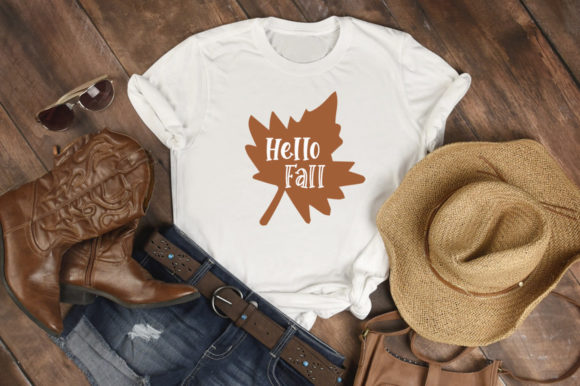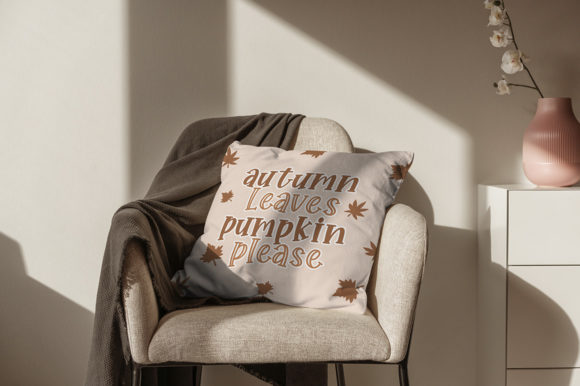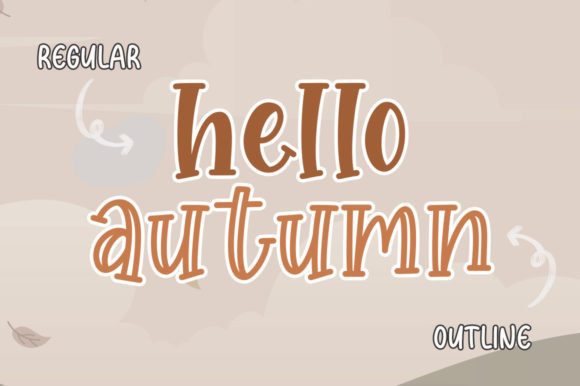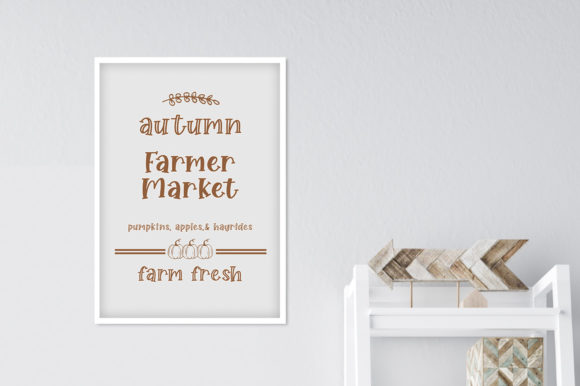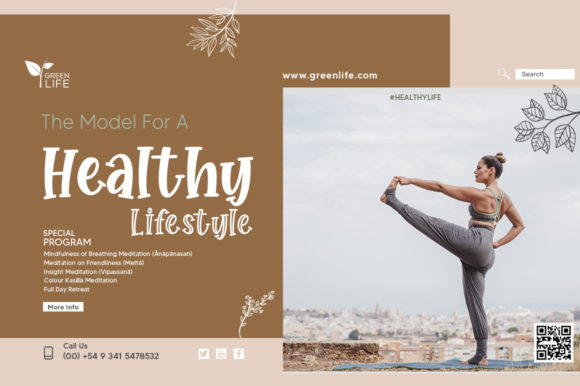
Embracing the Cozy Charm of Autumn with the Perfect Font: Autumn Season Font
As the leaves change colors and the air grows crisper, the autumn season brings with it a sense of coziness and playfulness. For designers and crafters, this season offers a wealth of inspiration for creative projects. One of the most crucial elements in any design is the font choice, and for autumn-themed projects, the Autumn Season Font is an excellent choice. This font is not just a stylish addition but a versatile tool that can elevate your designs, whether you’re working on cartoon-related projects, children’s games, or any creation that requires a lovely touch.
What is Autumn Season Font?
Autumn Season Font is described as a cool and playful display font. Its unique characteristics make it stand out from more traditional fonts, offering a fresh and vibrant look that’s perfect for capturing the essence of autumn. The font’s playful nature makes it an ideal choice for projects aimed at a younger audience or for anyone looking to add a whimsical touch to their designs.
Key Features of Autumn Season Font
- Playful and Cool Design: The font’s design is both playful and cool, making it versatile for various creative projects.
- Cartoon and Game Friendly: Its cartoon-like feel makes it especially suitable for cartoon-related designs and children’s games.
- Lovely Touch: For projects that require a touch of warmth and loveliness, this font fits perfectly.
- Display Font: As a display font, it’s designed to make a statement, perfect for titles, headings, and any text that you want to stand out.
Using Autumn Season Font in Your Designs
The versatility of the Autumn Season Font makes it suitable for a wide range of applications. Here are some ideas on how to incorporate this font into your projects:
Cartoon Related Designs
For designers working on cartoon characters, animations, or comics, the Autumn Season Font can add a modern and fun twist. Its playful nature aligns well with the often whimsical world of cartoons, making your characters and storylines even more engaging.
Children’s Games
Children’s games and educational materials can greatly benefit from the use of the Autumn Season Font. Its clear and playful design ensures that text is easy to read and understand, while also making the content more appealing to young audiences.
Autumn-Themed Projects
For any project that celebrates the autumn season, such as invitations to harvest festivals, Thanksgiving cards, or fall-themed party decorations, this font can add a thematic touch. Its autumn-inspired vibe ensures that your designs resonate with the season’s cozy and warm atmosphere.
Tips for Maximizing the Impact of Autumn Season Font
- Pair with Complementary Fonts: For body text, consider pairing the Autumn Season Font with simpler, more readable fonts to create visual hierarchy and balance.
- Experiment with Colors: Take advantage of the autumn color palette, such as shades of orange, red, and yellow, to enhance the thematic feel of your designs.
- Play with Textures and Patterns: Adding textures or patterns that evoke the feeling of autumn, like leaf motifs or wood grain, can further integrate your text into autumn-themed designs.
The Autumn Season Font is a valuable tool for designers and crafters looking to infuse their projects with the playful and cozy spirit of the autumn season. Its unique design and versatility make it suitable for a variety of applications, from cartoon-related designs and children’s games to any project that could benefit from a lovely touch. By incorporating this font into your designs and following a few simple tips, you can create engaging, thematic, and memorable content that captures the essence of autumn.
Whether you’re a professional designer or a hobbyist crafter, the Autumn Season Font invites you to explore the creative possibilities of the autumn season. So, embrace the charm of autumn in your designs and let this delightful font be your guide to creating works that are as warm and inviting as the season itself.